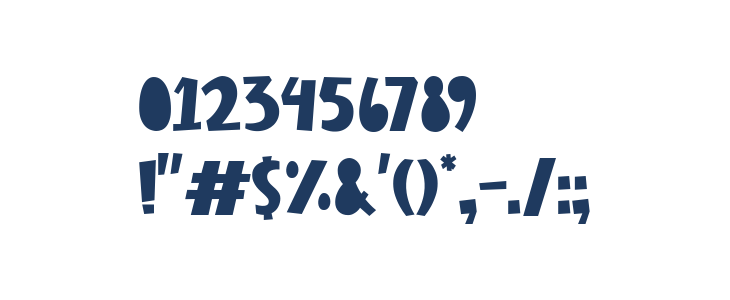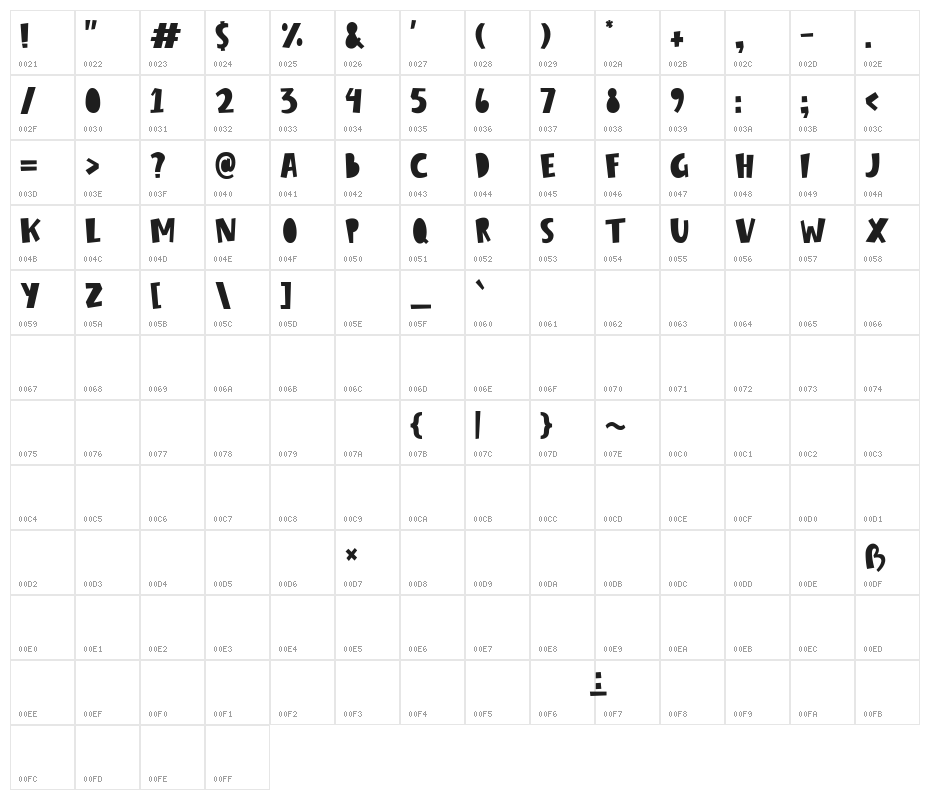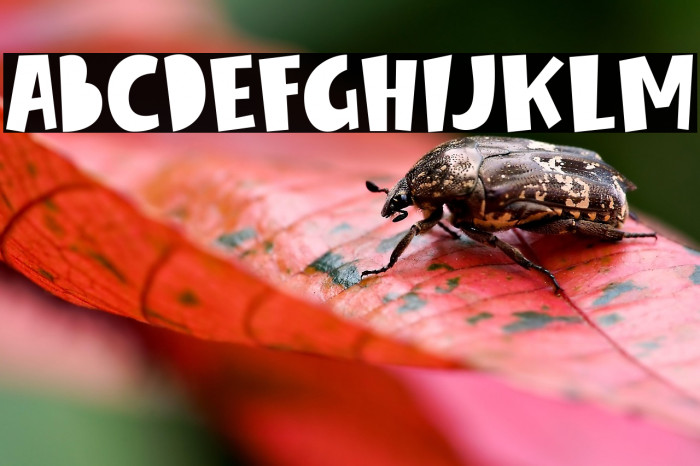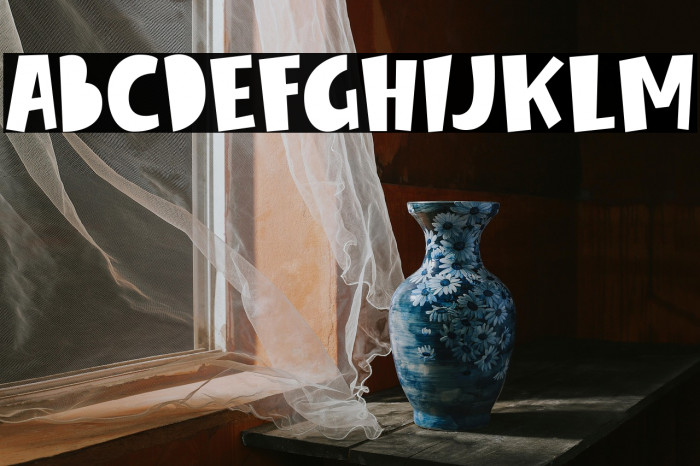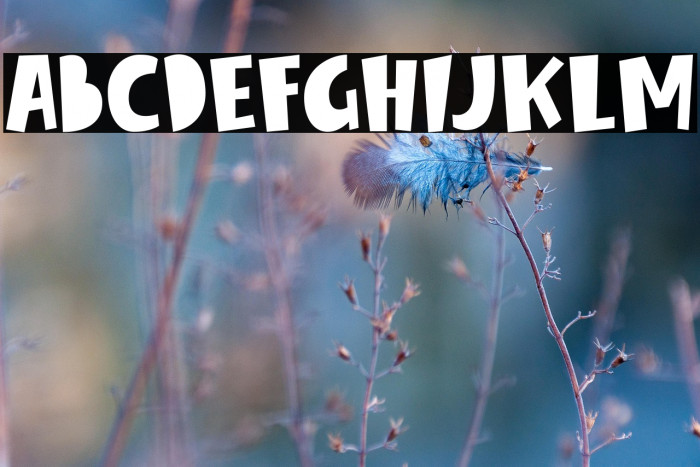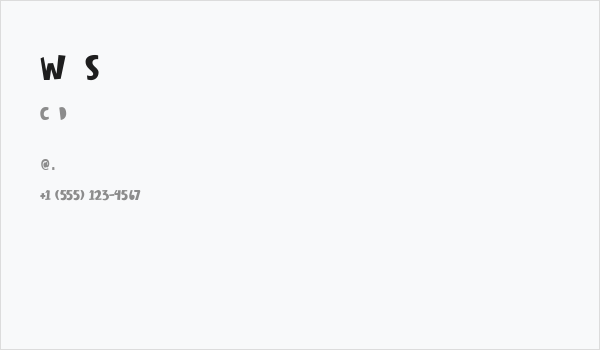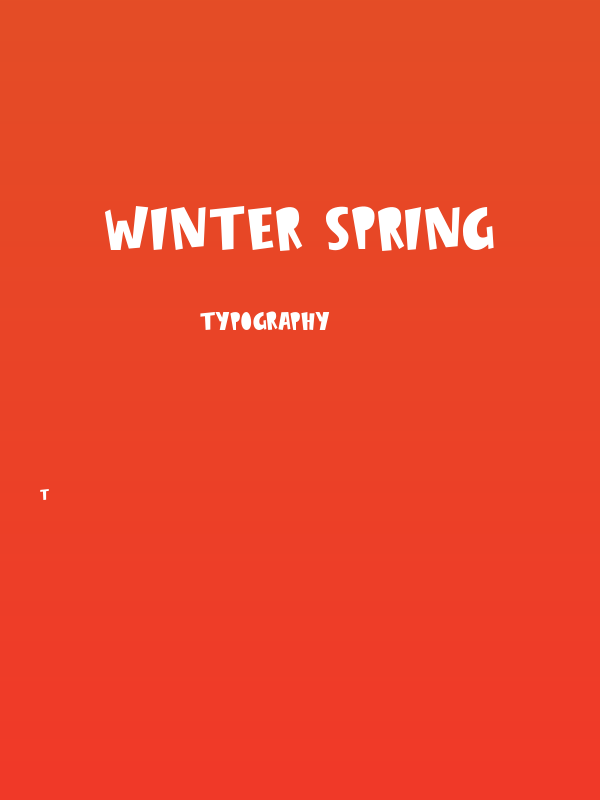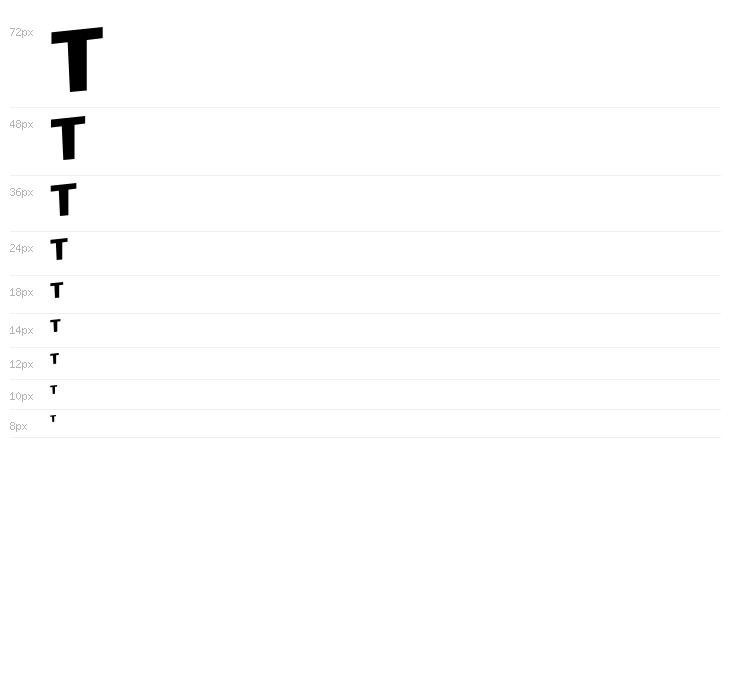
Winter Spring Font
Winter Spring Description
This font features bold, playful characters with a whimsical and energetic style. The letters are slightly irregular, giving them a hand-drawn appearance that adds a sense of fun and creativity. The uppercase letters are particularly bold and dynamic, with a slight tilt that enhances their lively nature. The numbers and special characters maintain this playful aesthetic, making the font suitable for projects that require a touch of humor and personality. The overall design is eye-catching and ideal for capturing attention.